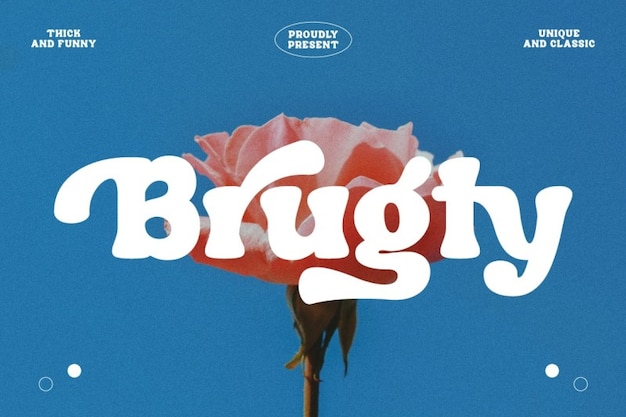
Brugty Font
Brugty is an amazing font that will help you to boost your project with a unique and classic touch. You can use this funny format for any of your creations. Make your projects shine with this format and download it in a single click to use it right away.